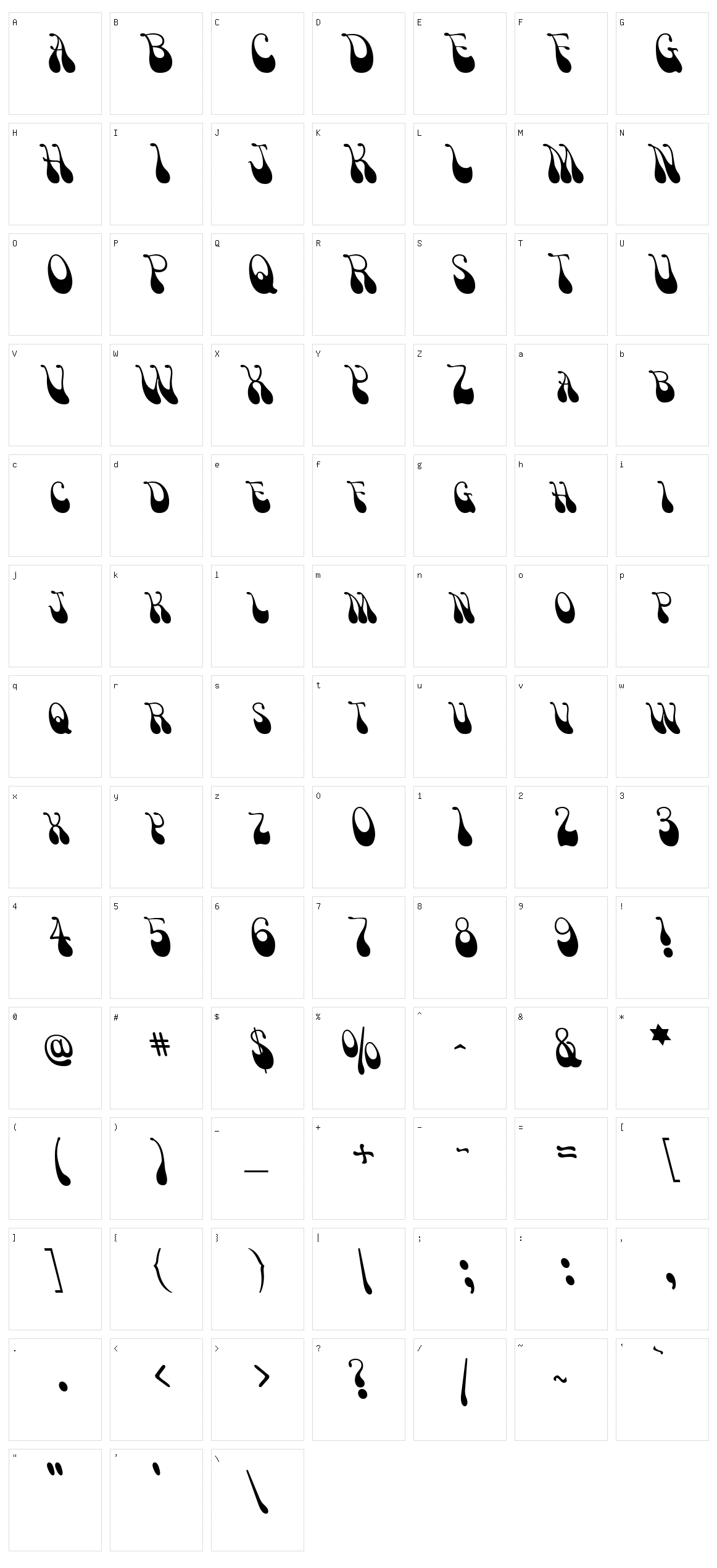
The Victor Moscoso font is based on the 1960s psychedelic poster lettering of the artist Victor Moscoso who was born in Spain, studied at the Cooper Union in New York and under Josef Albers at Yale University, before moving to San Francisco in 1959.
The letterforms, originating from nineteenth century wood type, are derived from some of Moscoso's most celebrated Neon Rose posters of the late sixties, in particular the quintessential Moby Grape 'Neptune's Notion' poster of 1967.